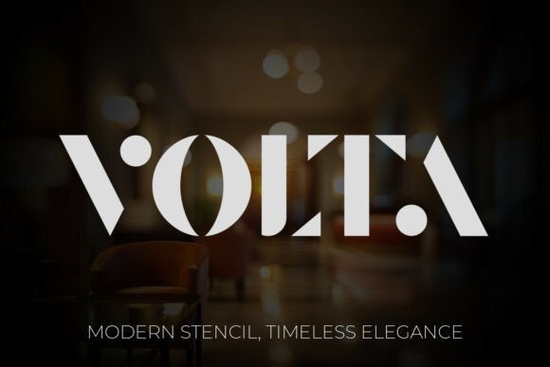
If you're looking for a display font that blends modern minimalism with high-end sophistication, Volta Font is worth a closer look. Designed with sharp geometric dot terminals and bold stencil cut-outs, Volta brings a refined yet contemporary feel to any project that calls for visual impact without sacrificing elegance. Whether you're crafting luxury packaging, designing wedding stationery, or building a brand identity for a boutique business, this font adds instant polish.
What makes Volta stand out among display fonts?
Volta isn’t just another bold sans-serif it’s built with intentional details that set it apart. The high-contrast cut-outs give it a stencil-like quality, while the rounded dot terminals soften its edges just enough to feel approachable. This balance makes it especially effective for industries where style and substance matter: think upscale fashion labels, fine jewelry, interior design studios, or premium real estate.
Unlike overly ornate script fonts or rigid industrial stencils, Volta walks the line between structure and flair. It’s legible at large sizes but still carries enough personality to become a focal point in your layout. And because it’s a display font, it’s meant to be used sparingly ideal for headlines, logos, or short statements where every letter counts.
Who should consider using Volta?
While anyone can download and use Volta, it truly shines in specific creative contexts:
- Small business owners launching a premium product line or rebranding with a luxe aesthetic.
- Print-on-demand sellers creating mockups for high-end apparel, mugs, or wall art targeting fashion-forward or minimalist audiences.
- Graphic designers working on editorial layouts for lifestyle magazines or campaign visuals for beauty brands.
- Wedding stationery designers who want something modern but still timeless for invitations or signage.
- Crafters making custom vinyl decals, laser-cut wood signs, or engraved gifts where clean lines and strong contrast matter.
If your work leans toward understated luxury rather than playful whimsy or gritty urban vibes, Volta fits right in. For a slightly softer alternative with similar elegance, you might also explore the Cameron display font, which offers a more fluid take on modern typography.
How does Volta compare to other stencil-style fonts?
Many stencil fonts lean heavily into ruggedness think military tags or warehouse signage. Volta avoids that by refining every curve and counter. Its geometry feels intentional, not utilitarian. Compare it to something like Block Retro, which embraces chunky, nostalgic forms, or Back to Retro, which channels vintage signage. Volta doesn’t reference the past; it’s firmly rooted in now.
Even next to sporty options like the Sports Baseball font, which thrives on energy and motion, Volta holds its ground through restraint and precision. It’s not loud it’s confident.
Where can you use Volta effectively?
Because of its distinctive character, Volta works best when given room to breathe. Try it in:
- Logo design for boutique hotels, skincare lines, or artisanal coffee roasters.
- Product packaging where shelf presence matters perfume boxes, candle labels, or limited-edition releases.
- Social media graphics for fashion or design brands aiming for a curated, gallery-like feed.
- Event branding for galas, art openings, or luxury pop-ups.
Avoid using it for body text or long paragraphs it’s a display font, after all. Stick to headlines, hero sections, or single-word accents to let its details shine.
If you answered “yes” to most of these, Volta could be the missing piece in your next standout design.